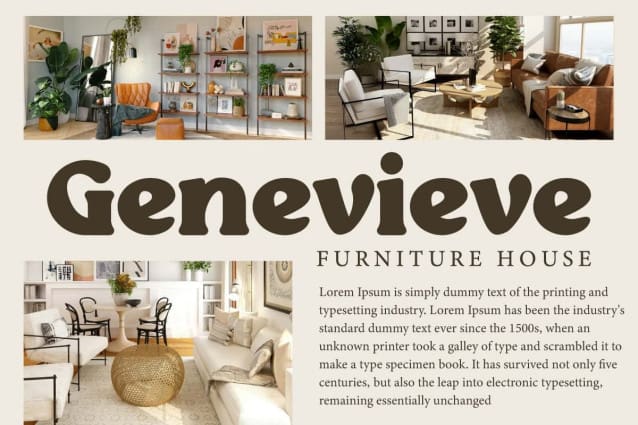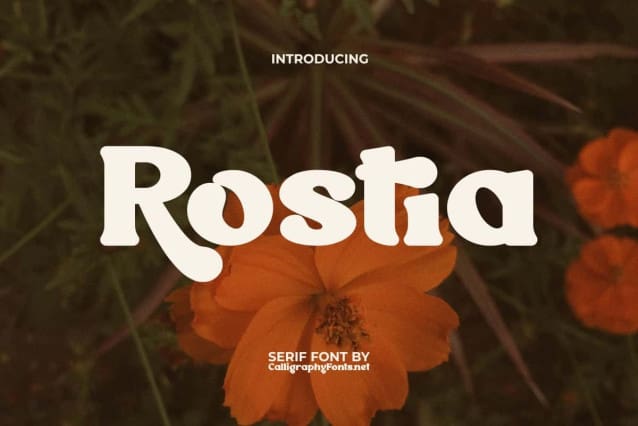
Rostia Font
Rostia Font is a vintage serif display font created with a modern style by classic bold typeface and equipped with ligature characters that make this font more blended in retro style. This font will be suit for branding logos, brochure, embossed design, greeting card, header, heading, labels, logotype, menu, mockup, paper bag, poster, printed materials, quotes, signboard, template, title, and many more.
Rostia Font is a potentially strong and dominant font that is inspired by vintage letters with a careful process. It is perfect for people looking for a vintage aesthetic. This font is perfectly match for apparel, boutique, cafes, fashion, florist, graphic design, home furniture, photography, restaurant, spa salon, and many more. Its timeless elegance is perfectly designed to enhance your creative projects with its unique charm and flexibility.